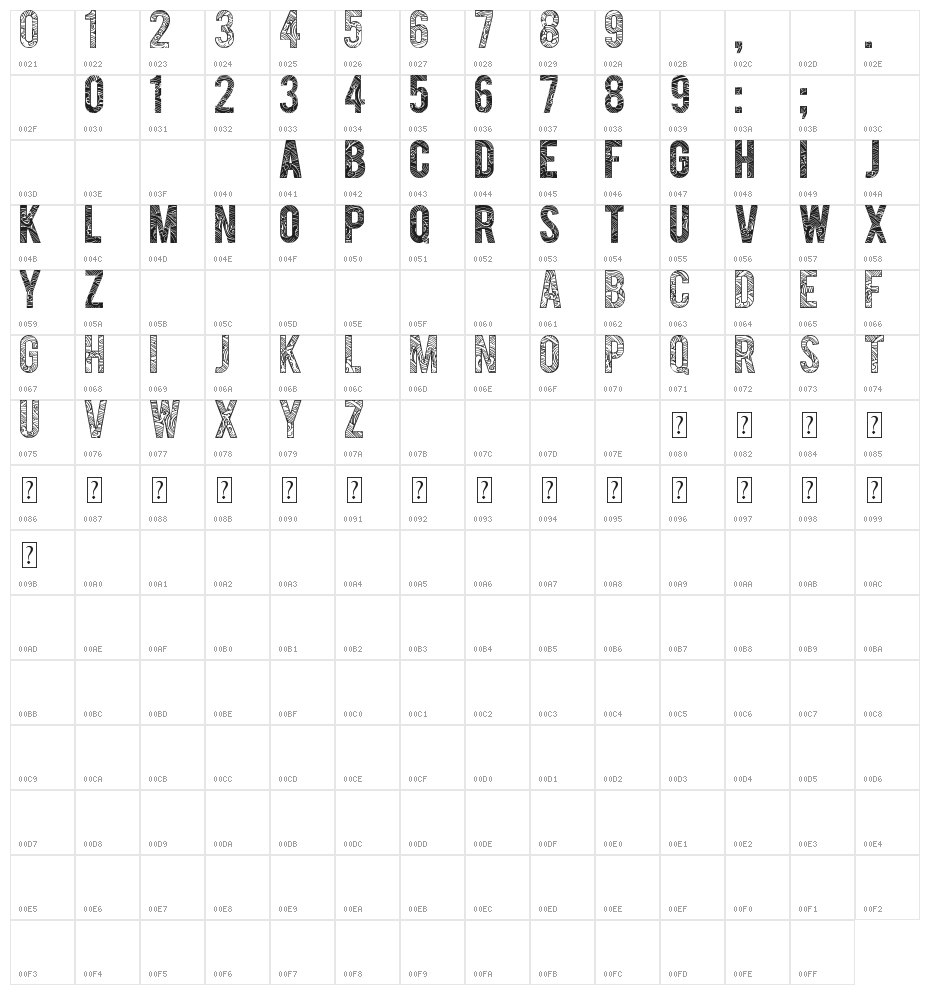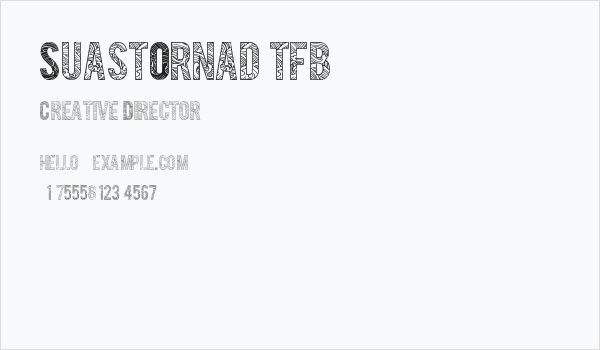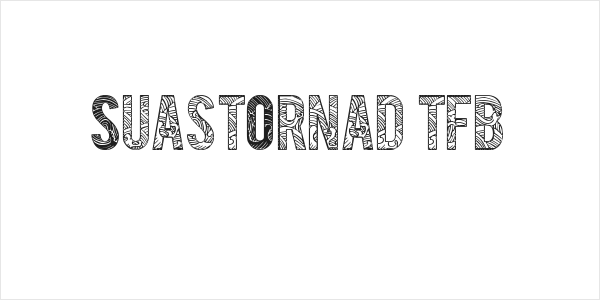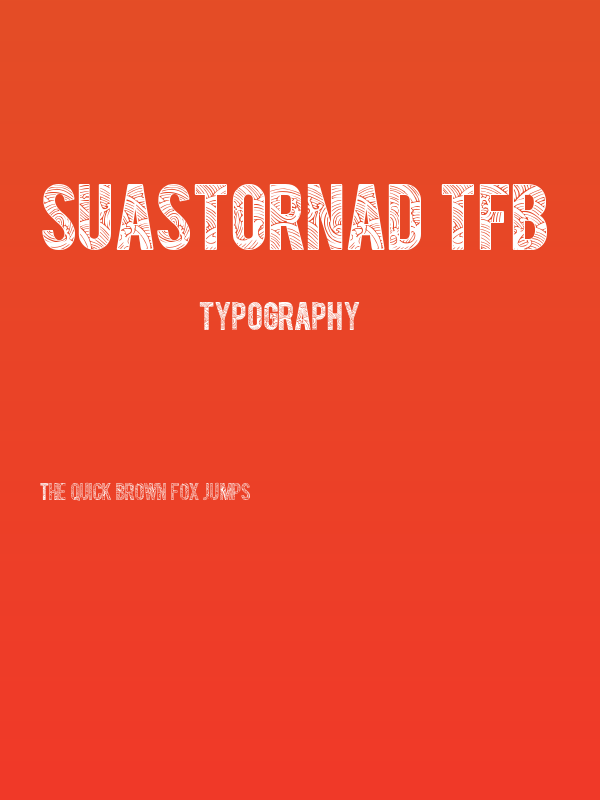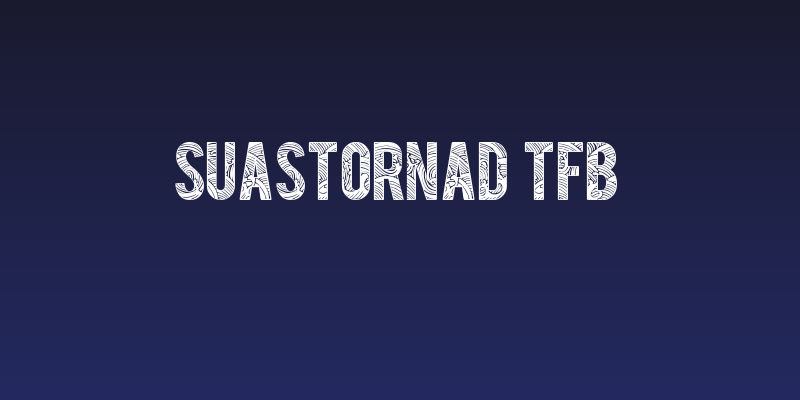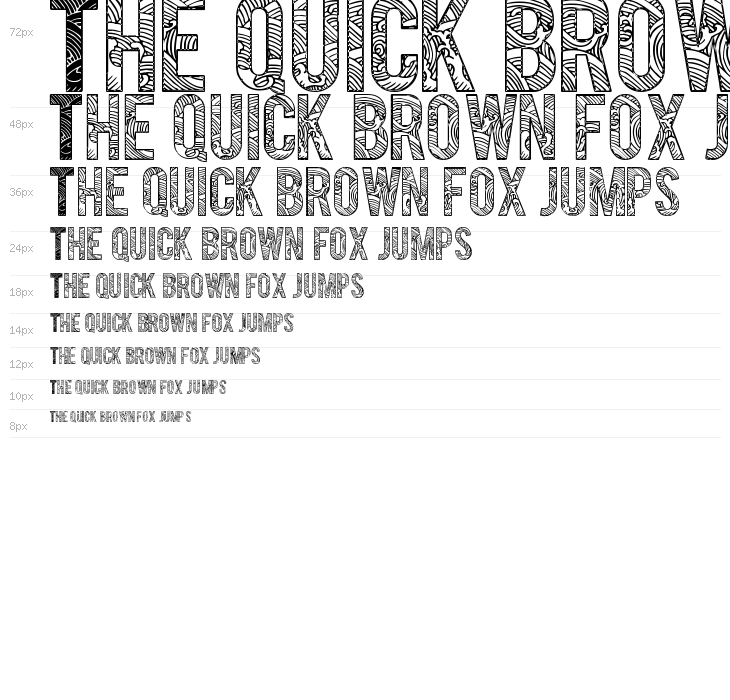
SuastOrnad tfb Font
SuastOrnad tfb Description
This font features a bold, decorative style with intricate patterns filling each character. The uppercase and lowercase letters, as well as numbers, are designed with a unique, artistic flair that resembles hand-drawn illustrations. The patterns within the characters include swirling lines and abstract shapes, giving the font a dynamic and eye-catching appearance. The overall design is bold and stands out, making it suitable for creative and artistic projects. The font maintains a consistent width and weight throughout, ensuring readability despite its decorative elements.
| Proposed Projects | Ideal for posters, artistic branding, album covers, and creative invitations. |